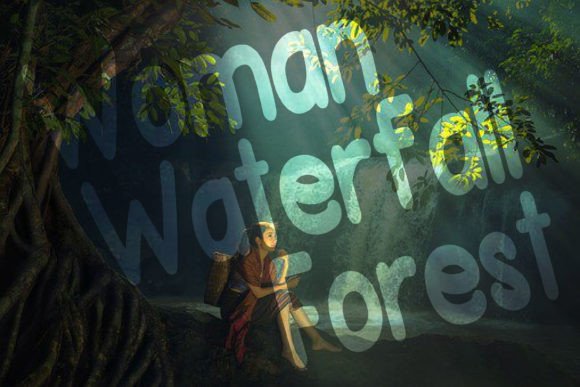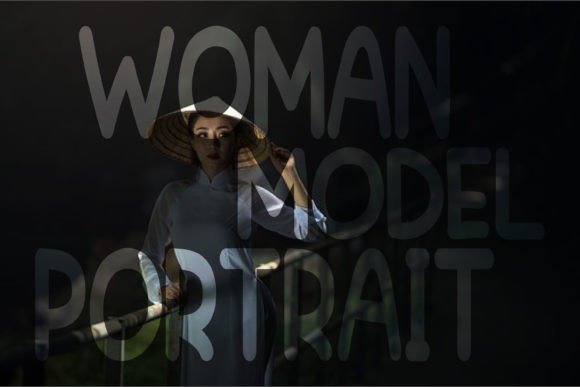
Introducing Asia Font: The Fun and Quirky Handwritten Display Font
Are you looking for a font that can add a touch of playfulness and creativity to your designs? Look no further than Asia Font! This fun and quirky handwritten display font is perfect for crafty ideas and is sure to take your designs to the next level. In this article, we’ll explore the features and benefits of Asia Font, and why it’s a must-have for designers and crafters alike.
What is Asia Font?
Asia Font is a unique and charming handwritten display font that is designed to add a personal touch to your designs. With its quirky and irregular strokes, Asia Font gives your text a friendly and approachable feel that’s perfect for a variety of design projects. Whether you’re creating a logo, a poster, or a social media graphic, Asia Font is sure to make your design stand out.
Features of Asia Font
So, what makes Asia Font so special? Here are just a few of its key features:
• Handwritten style: Asia Font has a genuine handwritten feel that’s perfect for adding a personal touch to your designs.
• Quirky and irregular strokes: The font’s irregular strokes and quirky letterforms give it a playful and charming feel.
• Display font: Asia Font is designed as a display font, making it perfect for headlines, titles, and other large text elements.
• Easy to read: Despite its quirky style, Asia Font is surprisingly easy to read, making it perfect for use in a variety of design projects.
Benefits of Using Asia Font
So, why should you choose Asia Font for your design projects? Here are just a few of the benefits of using this fun and quirky font:
• Adds a personal touch: Asia Font’s handwritten style and quirky strokes give your designs a personal touch that’s hard to replicate with other fonts.
• Perfect for crafty ideas: Asia Font is perfect for crafty ideas and DIY projects, adding a touch of whimsy and playfulness to your designs.
• Versatile: Asia Font can be used in a variety of design projects, from logos and posters to social media graphics and more.
How to Use Asia Font
Using Asia Font is easy! Here are a few tips for getting the most out of this fun and quirky font:
• Pair with other fonts: Asia Font pairs well with other fonts, so don’t be afraid to experiment with different combinations.
• Use for headlines and titles: Asia Font is perfect for headlines and titles, where its quirky style can really shine.
• Add some color: Asia Font looks great with bright, bold colors, so don’t be afraid to get creative with your design.
Asia Font is a fun and quirky handwritten display font that’s perfect for adding a touch of playfulness and creativity to your designs. With its irregular strokes and quirky letterforms, Asia Font is sure to make your design stand out. Whether you’re a designer or a crafter, Asia Font is a must-have font that’s sure to inspire your next project. So why wait? Download Asia Font today and start adding a personal touch to your designs!
• Asia Font is a fun and quirky handwritten display font.
• It’s perfect for crafty ideas and DIY projects.
• Asia Font has a genuine handwritten feel and quirky strokes.
• It’s easy to read and versatile.
• Asia Font is perfect for headlines, titles, and other large text elements.